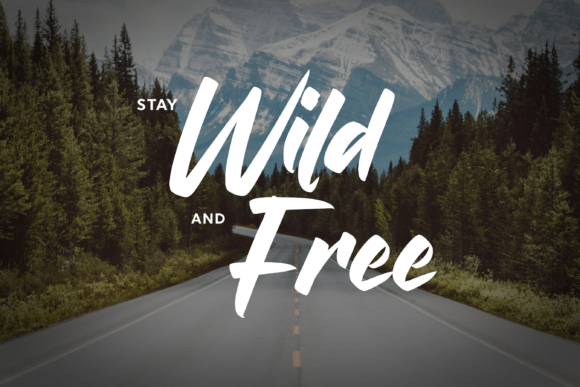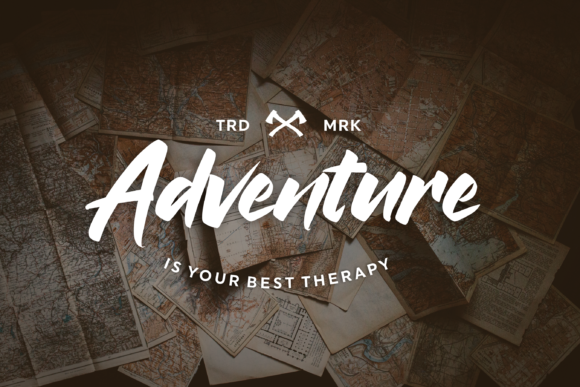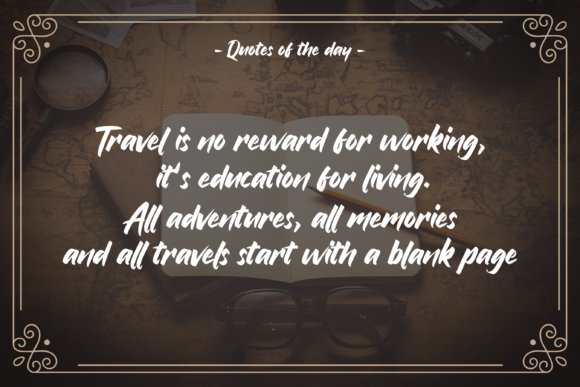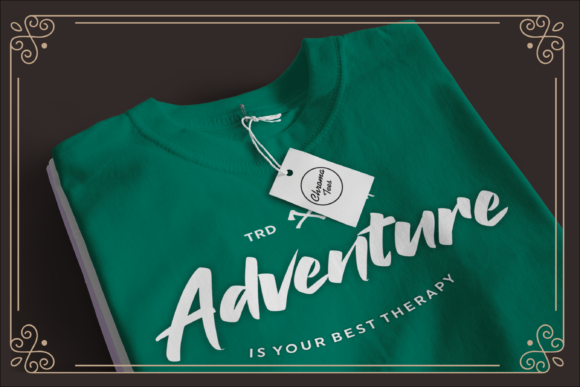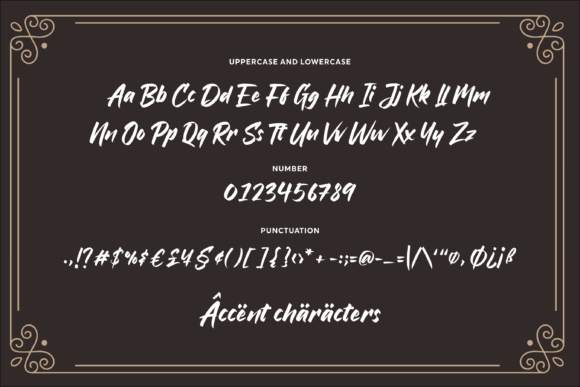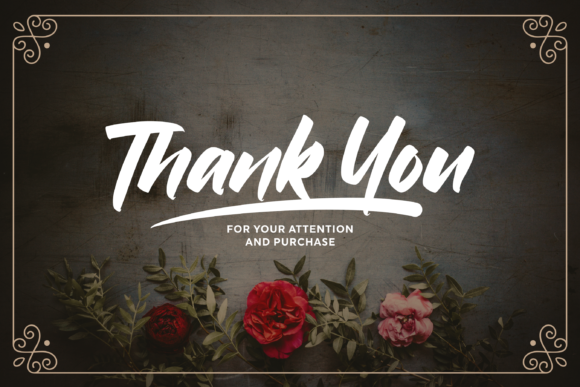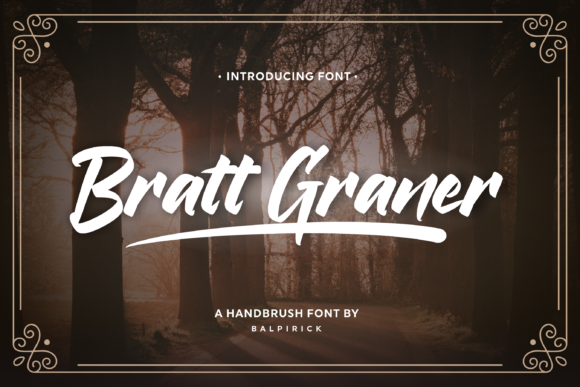
The Designer’s Delight: Bratt Graner Font
I’ll never forget the struggle I faced while working on a branding project for a crafty DIY client. The logo just wasn’t coming together, and the font I had chosen was falling flat. It was then that I stumbled upon Bratt Graner, a bold handwritten font that instantly caught my attention. With its unique charm and versatility, it quickly became my go-to font for a wide range of creative projects.
An Honest Review of Bratt Graner
- ✨ Unique and eye-catching design: Bratt Graner has a distinct, handcrafted feel that sets it apart from other fonts.
- ✅ Highly versatile: This font is perfect for logos, branding, social media, and DIY projects.
- 💡 Easy to read: Despite its bold and playful nature, Bratt Graner remains surprisingly legible, even at smaller sizes.
- 🎨 OpenType features: The font comes with a range of OpenType features, including glyphs and stylistic alternates, which can be used to add an extra layer of creativity to your designs.
While Bratt Graner is an excellent font, it’s not without its quirks. For instance:
- 🤔 Limited use in formal contexts: Due to its bold and playful nature, Bratt Graner may not be the best fit for formal or professional projects that require a more traditional font.
- ⚠️ Some characters may require manual adjustment: As with any font, some characters may require manual adjustment to ensure optimal spacing and alignment.
The Backstory of Bratt Graner
Bratt Graner was designed with the creative hobbyist in mind. Its unique blend of boldness and playfulness makes it perfect for a wide range of projects, from logos and branding to social media graphics and DIY crafts. The font’s designer aimed to create a font that was both fun and functional, with a focus on OpenType features and glyphs.
| Author | Balpirick |
Q: What is the best way to use Bratt Graner in my designs?
A: Bratt Graner is a versatile font that can be used in a variety of contexts, from logos and branding to social media graphics and DIY crafts. Experiment with different OpenType features and glyphs to add visual interest to your designs.
Q: Is Bratt Graner suitable for formal or professional projects?
A: While Bratt Graner is an excellent font, its bold and playful nature may not make it the best fit for formal or professional projects. Consider using a more traditional font for these types of projects.